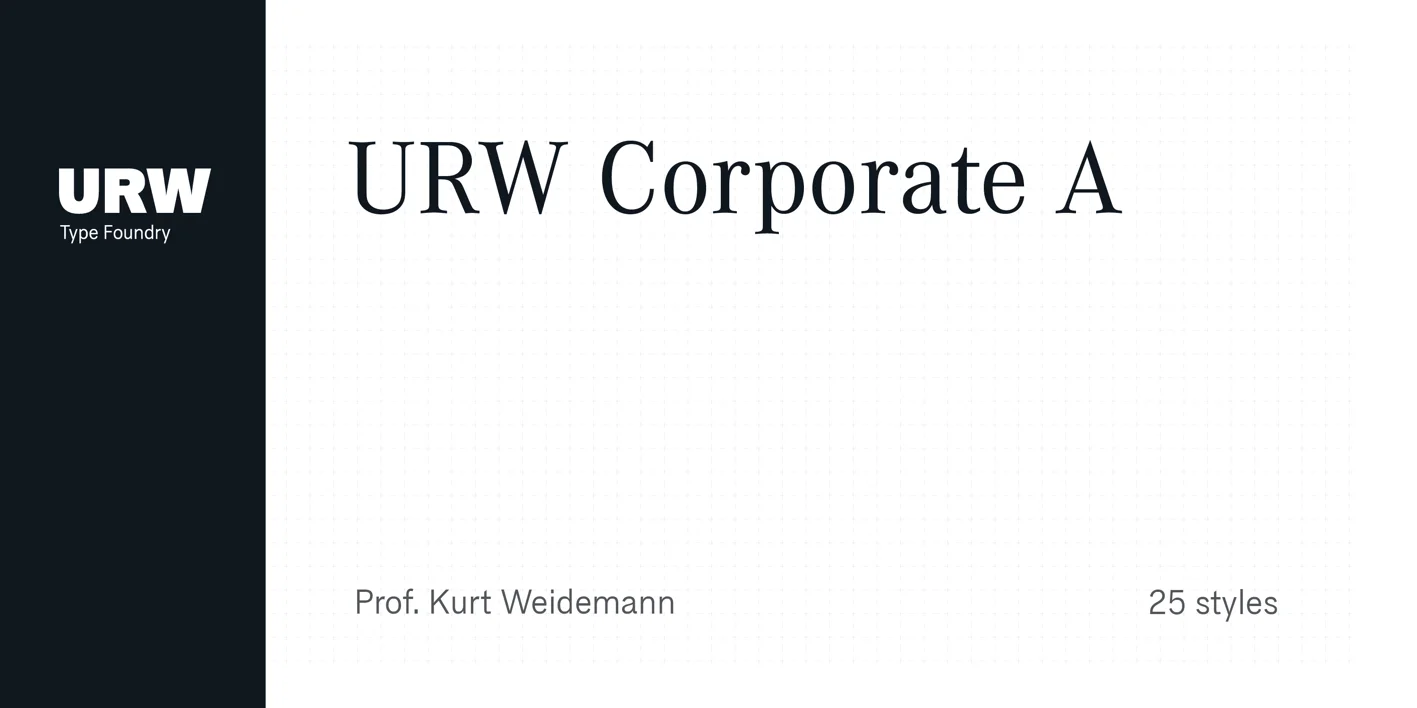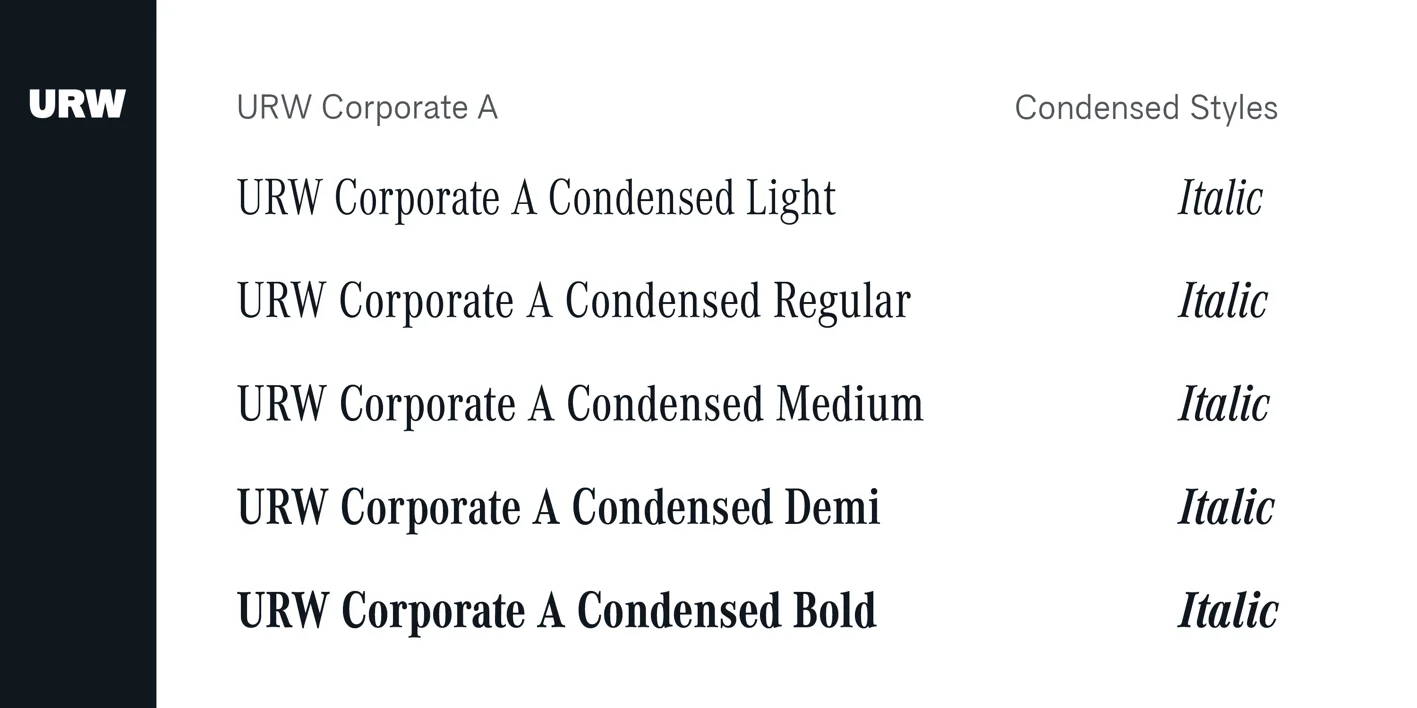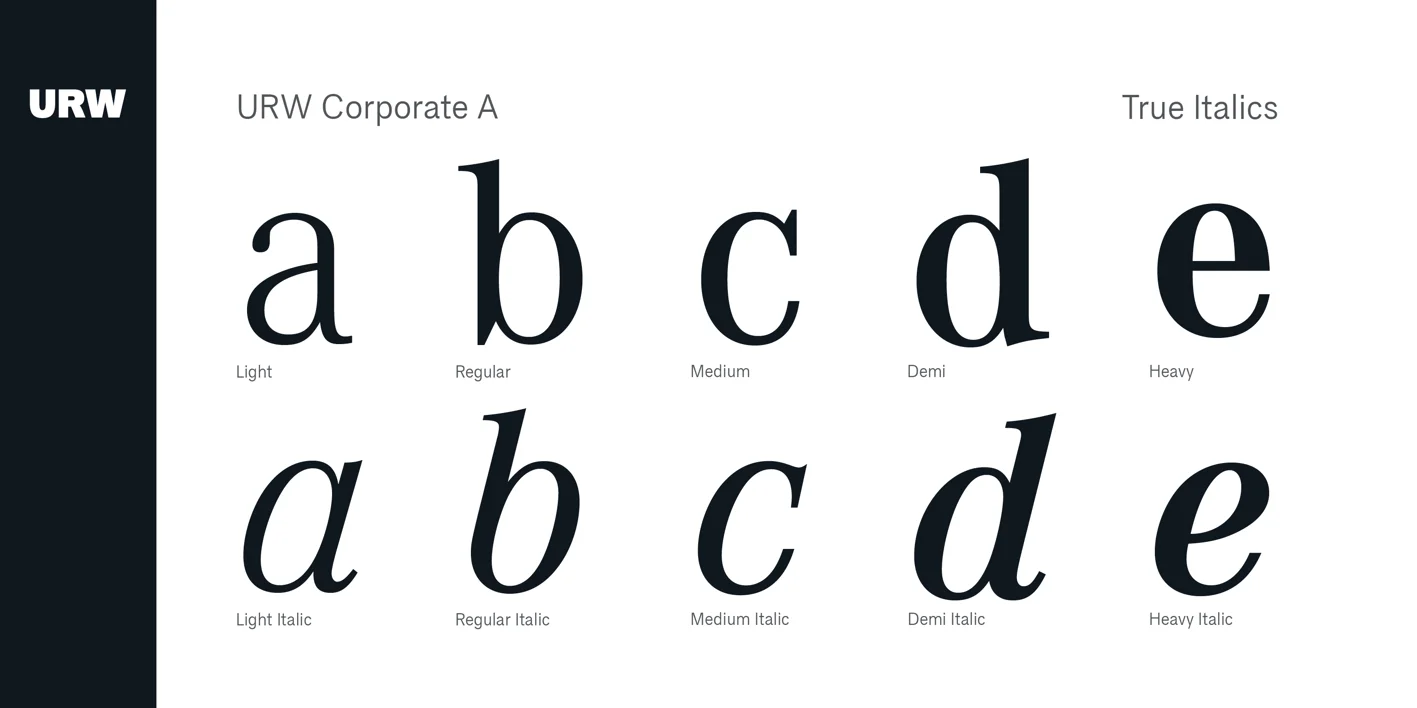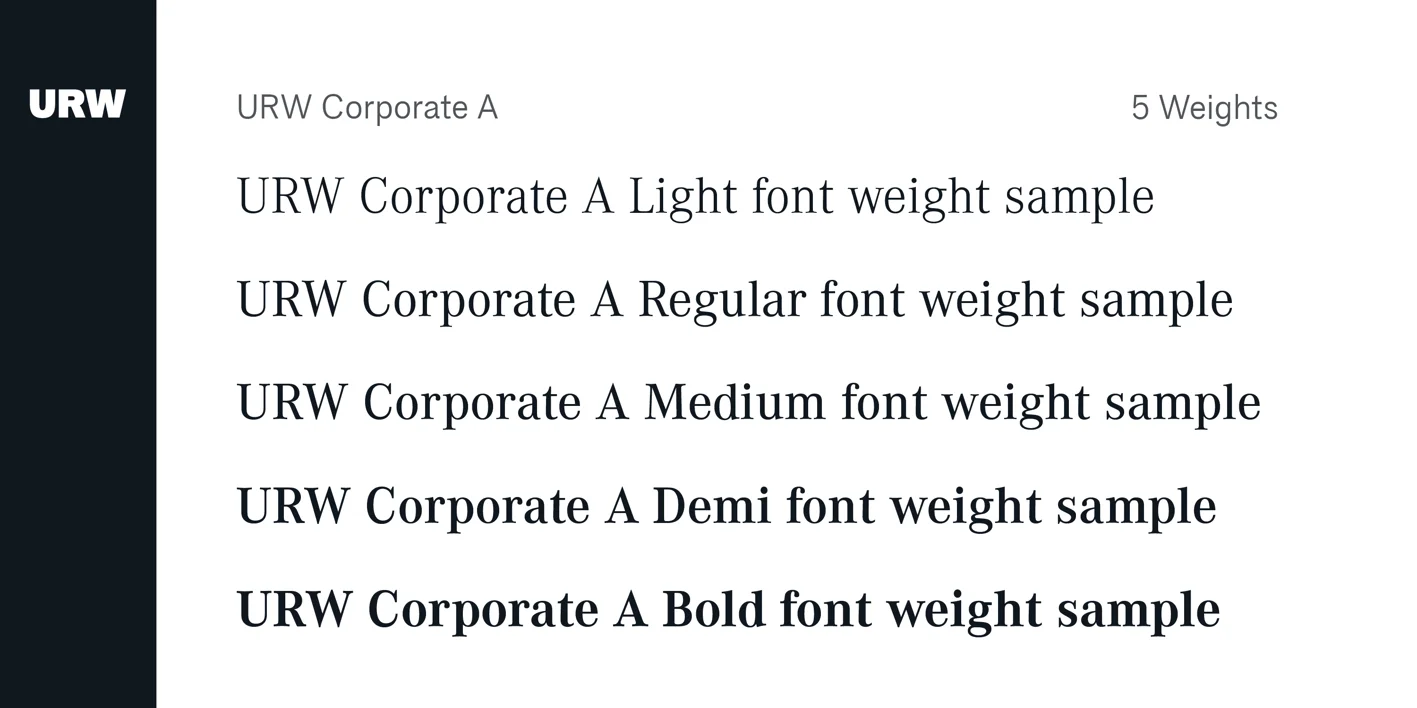
Corporate A Font
Few typefaces manage to balance a confident voice that adapts to diverse briefs with genuine day-to-day practicality. Corporate A is one of them. The typeface brings a versatile sensibility to a broad range of creative disciplines, with consistent type colour across continuous text that holds up whether the work is print-first or screen-first.
In practice, Corporate A proves particularly effective for poster creation, web design, environmental graphics, brand identity systems, editorial layouts. Designers reaching for it find that the type decisions feel resolved rather than laboured — a useful quality when client timelines are tight.
The range of applications extends to signage systems, product labels, advertising campaigns, social media graphics. That breadth is deliberate: the proportions and spacing were stress-tested across a wide range of mock briefs before the typeface was finalised.
The consistent rhythm of Corporate A across a full paragraph creates the kind of even grey value that makes extended reading comfortable, a detail that matters more in long-form content than its subtlety might suggest.
UX designers establishing typographic systems for digital products find Corporate A a reliable choice for projects that demand both personality and restraint. The design avoids the self-conscious quirkiness that dates quickly, settling instead for considered distinctiveness that holds up over time.